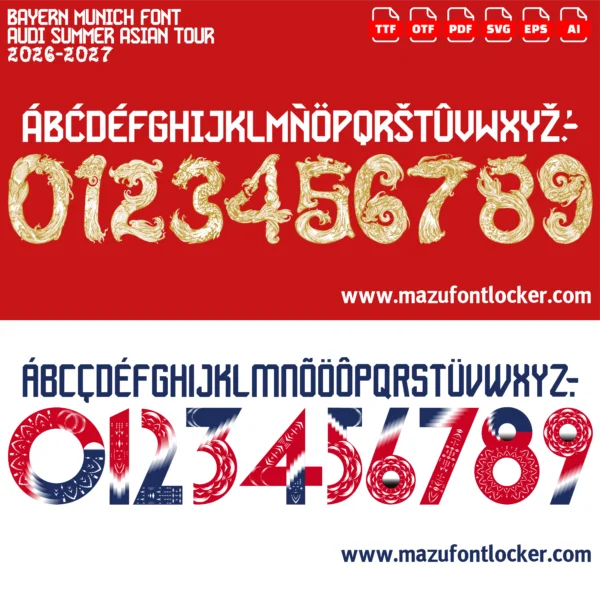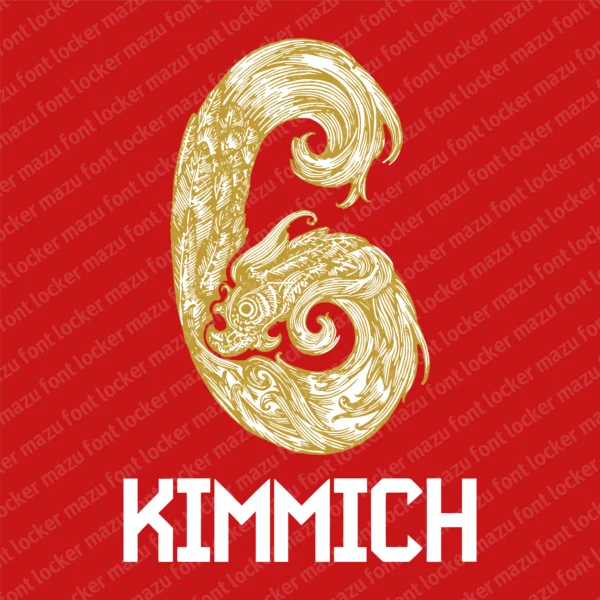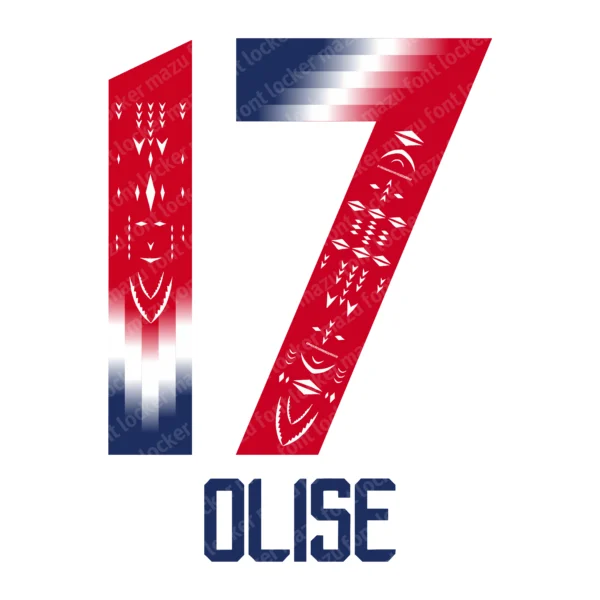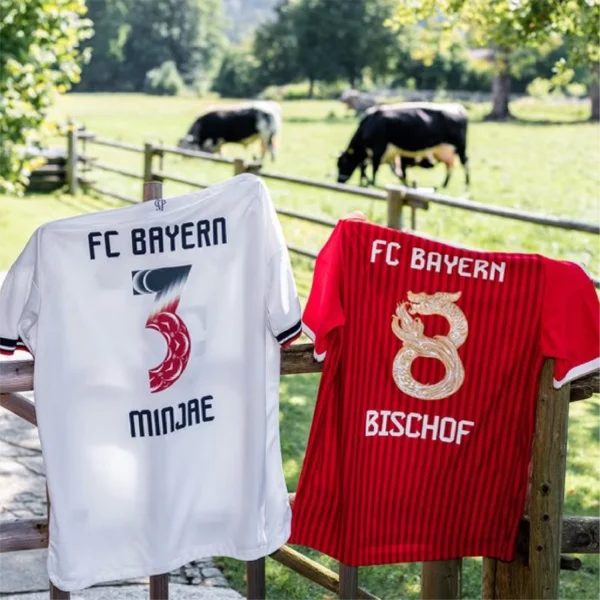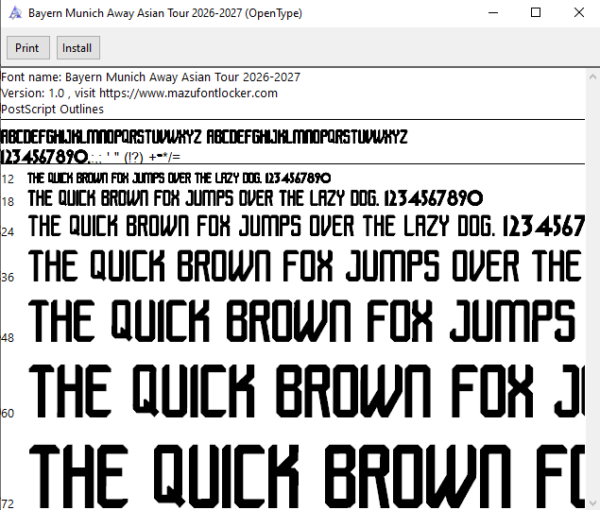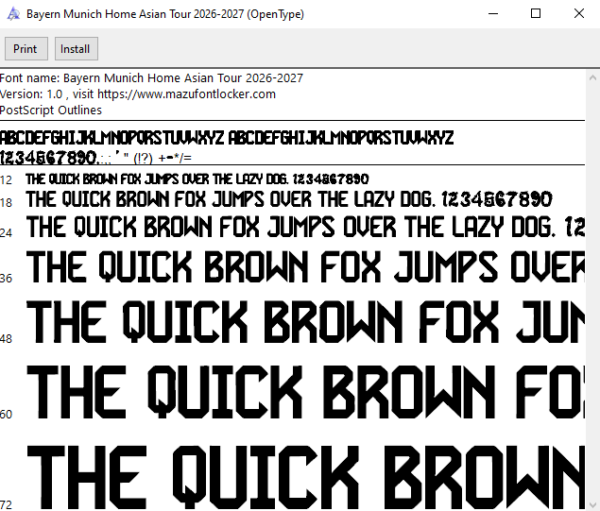
Bayern Munich Asian Tour 2026-2027 Font Vector – Stunning Die Roten Masterpiece
This font captures the razor-sharp, thunderous lettering that embodies Bayern Munich’s proud club identity, rich German football heritage, iconic red-and-white tradition, and relentless winning mentality — delivering premium quality and explosive energy for jersey mockups, football graphics, sports branding, and fan creations.
Bayern Munich Asian Tour 2026-2027 Font Vector – Iconic Reckordmeister Heritage Typeface
The Bayern Munich Asian Tour 2026-2027 Font Vector is a premium typeface that accurately recreates the official match lettering worn by Bayern Munich during their 2026-2027 Asian Tour. This high-quality vector font kit captures the bold, clean, and instantly recognizable typography that perfectly complements the club’s iconic red and white identity.
Designed for professional designers, football enthusiasts, and passionate Bayern supporters, the Bayern Munich Asian Tour 2026-2027 Font Vector delivers exceptional authenticity for creating realistic jersey mockups, football merchandise, social media graphics, match posters, and custom fan artwork. Every character has been carefully recreated to match the powerful and precise visual style of one of Germany’s most successful and historic football clubs.
This font stands out thanks to its precise vector construction and authentic club-inspired styling. Every letter and numeral has been meticulously recreated to match the official shirt lettering used throughout the 2026-2027 Asian Tour and associated pre-season campaigns. Whether you’re producing professional kit templates or creating eye-catching football content, the Bayern Munich Asian Tour 2026-2027 Font Vector delivers a genuine match-ready appearance inspired by the proud identity of the Bavarian giants.
The lettering featured in the Bayern Munich Asian Tour 2026-2027 Font Vector combines clean geometric lines with powerful modern proportions. The result is a premium and highly readable typeface that reflects Bayern Munich’s winning mentality, attacking football, precision, and proud “Mia san mia” heritage.
• Complete uppercase A–Z alphabet and numbers 0–9 in authentic Bayern Munich Asian Tour 2026-2027 style
• Recreate the distinctive look of Bayern Munich player names and squad numbers for creative projects
Bayern Munich Asian Tour 2026-2027
The 2026-2027 Asian Tour marks another exciting chapter for Bayern Munich as the club continues its global presence and pursuit of excellence. Competing in high-profile pre-season matches across Asia while preparing for the Bundesliga and European campaigns, Bayern Munich will once again showcase its iconic red and white colours on the international stage.
Known for its rich history, passionate supporters, and commitment to attacking football, Bayern Munich remains one of Germany’s most celebrated clubs. The Bayern Munich Asian Tour 2026-2027 Font Vector is designed to capture the bold visual character associated with the club’s modern football identity.
The Bayern Munich Asian Tour 2026-2027 Font Vector is an independently designed typeface package inspired by the official shirt lettering associated with the 2026-2027 Asian Tour. It has been carefully recreated for football enthusiasts, graphic designers, collectors, and creators producing custom jersey concepts, football artwork, and fan-made projects.